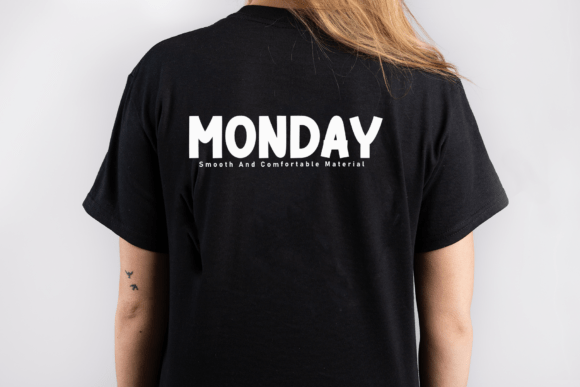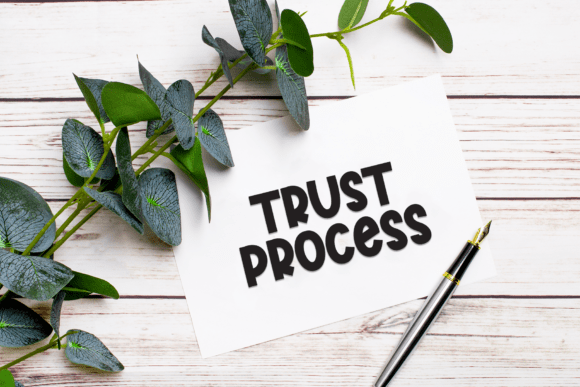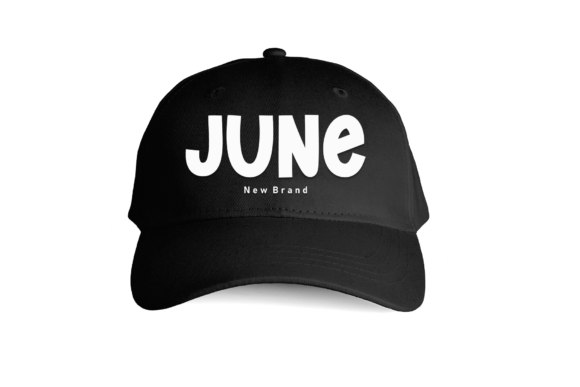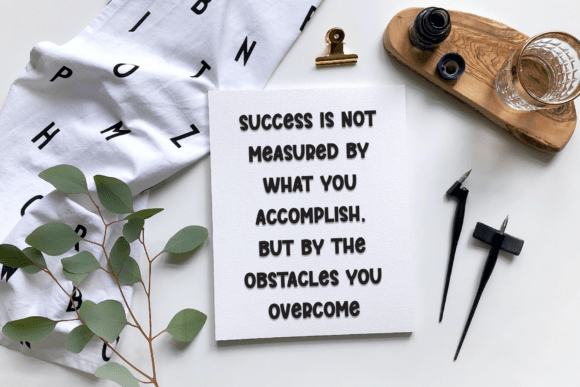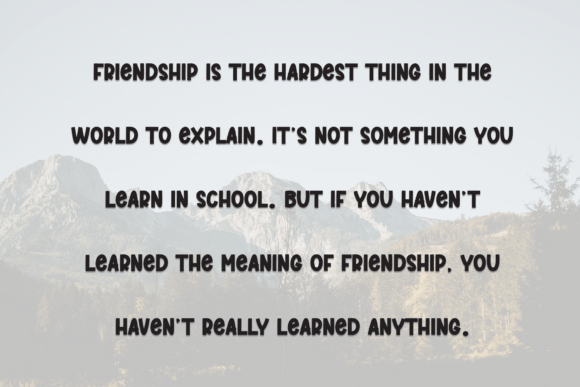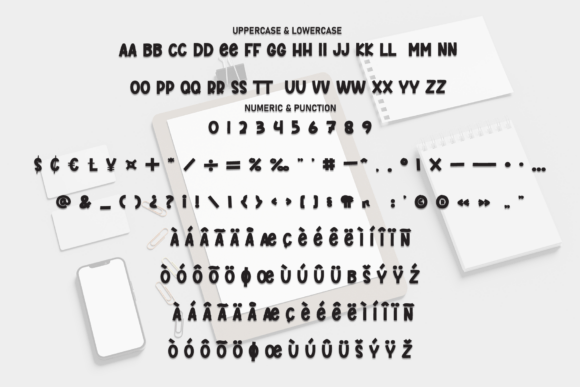
Introduction to Mokup Font
Have you ever been stuck on a creative project, staring at a blank screen, searching for the perfect font to elevate your design? That’s a familiar feeling for many of us. As designers, we’re always on the lookout for that one special element to make our work shine. The right font can make all the difference, and today we’re excited to introduce you to the Mokup Font – a game-changer in the world of typography.
About Mokup Font
The Mokup Font is a casual and neat display font designed to bring warmth and clarity to your projects. With its clean structure and approachable style, it suits branding, headlines, and everyday designs. Whether you’re working on a project with a transparent background or need a design resource that’s both high quality and free to download, the Mokup Font is an excellent choice.
Key Features of Mokup Font
- High-quality design resource ideal for creative projects, including mockups, wireframes, and prototypes.
- Features a transparent background, allowing for seamless integration into various design environments.
- Includes a range of glyphs and characters, ensuring versatility in creative project applications.
- Designed with high resolution (300 DPI) for optimal clarity and readability.
- Available in a range of font sizes, making it suitable for various design applications, from small wireframes to large mockups.
Honest Review: Mokup Font
I recently had the chance to work with the Mokup Font, a free design resource that’s gained a lot of attention in the design community. Overall, I’m impressed with its potential, but as with any design resource, it’s not without its limitations.
- ✨ High-quality typography: The Mokup Font offers crisp, clean lines and a sophisticated look that’s perfect for creative projects.
- ✨ Transparent background: This feature makes it easy to integrate the font into any design, from logos to web pages.
- ⚠️ Limited character set: While the font includes a decent selection of letters and symbols, it falls short in terms of the overall character set, which might be a concern for designers working on complex projects.
- ⚠️ Lack of customization options: The font is quite straightforward and doesn’t offer many customization options, which might limit its appeal for designers seeking a more personalized look.
Overall, the Mokup Font is a solid addition to any designer’s toolkit. While it has its limitations, its high-quality typography and transparent background make it a great choice for creative projects. With a little creativity, you can work around its limitations and create something truly special.
Mokup Font is a high-quality design resource perfect for your creative project needs. This versatile font is available for free download and offers a transparent background, making it easy to use in various design applications.